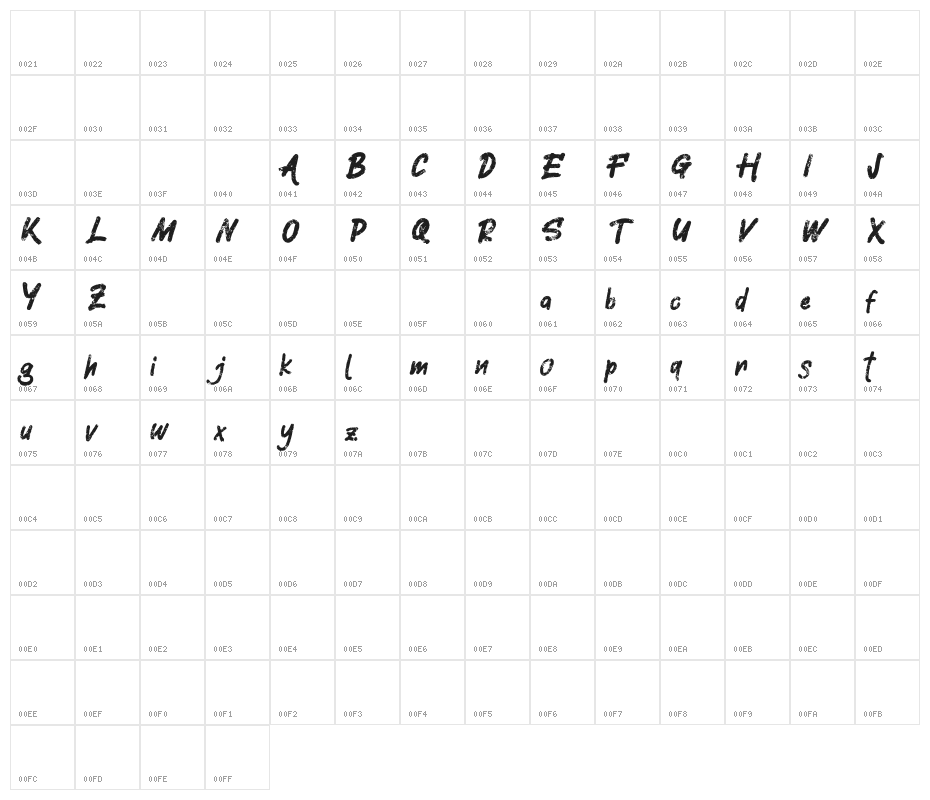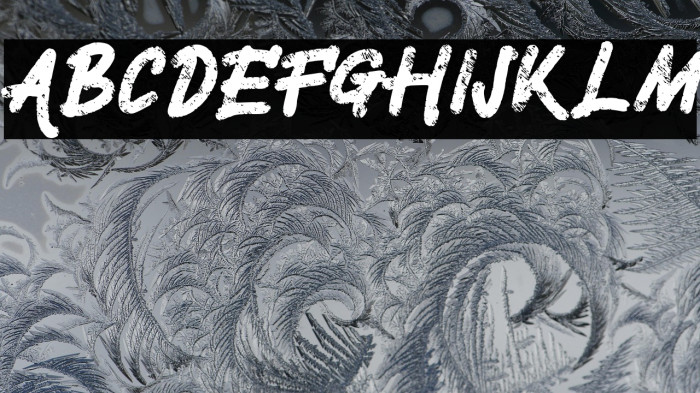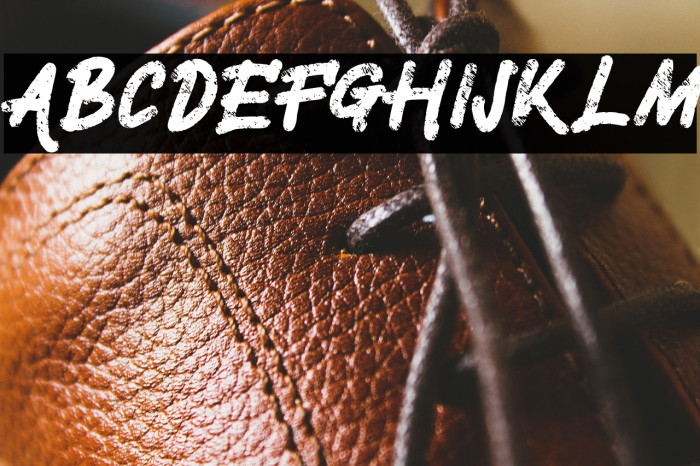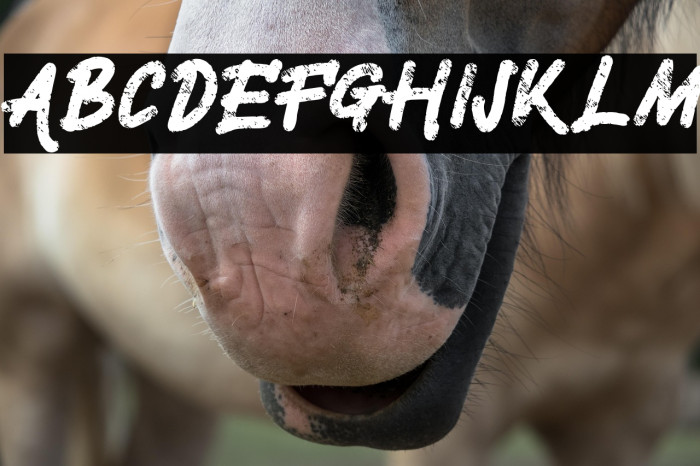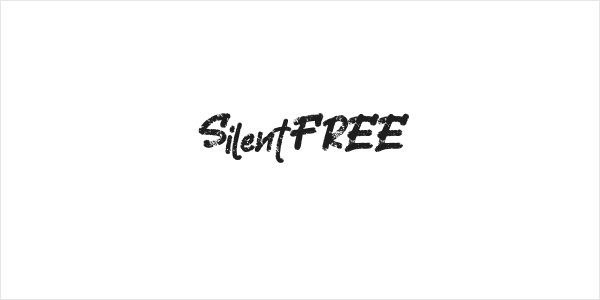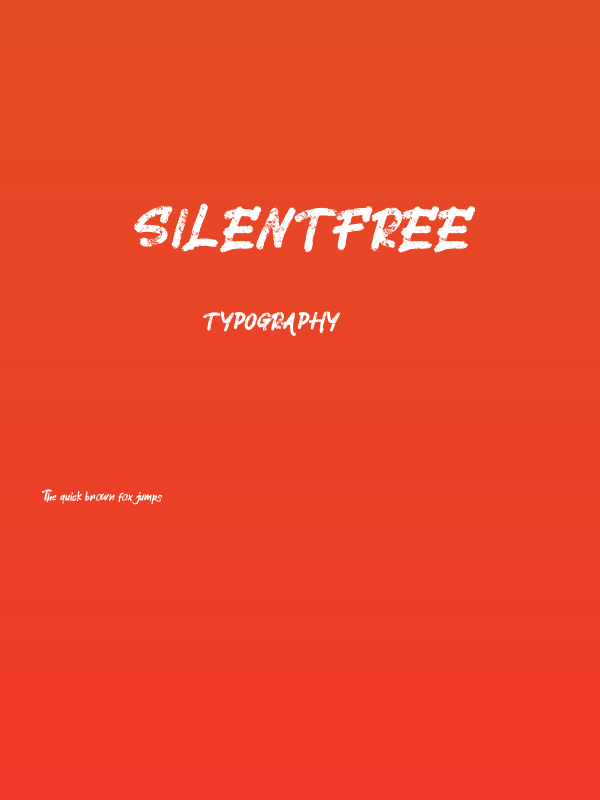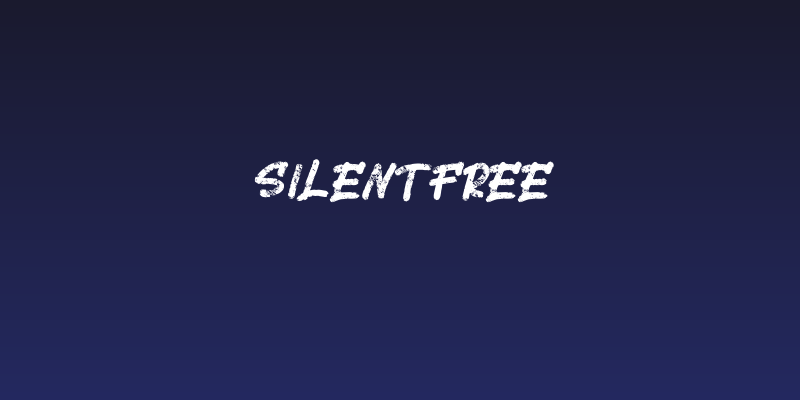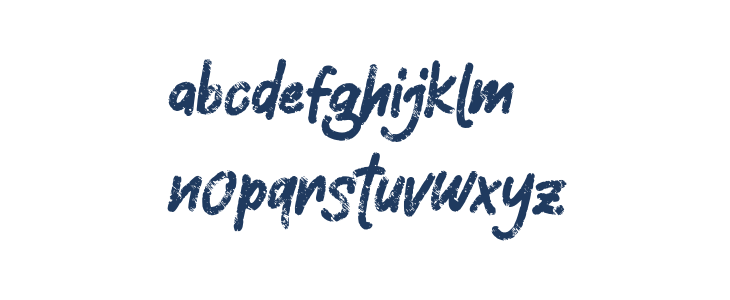
SilentFREE Font
SilentFREE Description
This font features a bold and textured style, reminiscent of a brush or paint stroke effect. The characters have a dynamic and energetic appearance, with irregular edges that give a hand-crafted feel. The uppercase and lowercase letters maintain a consistent style, with a slight slant that adds to the casual and informal look. The numbers and special characters are designed to match the overall aesthetic, making the font versatile for various creative applications. Its unique texture and boldness make it stand out, suitable for projects that require a strong visual impact.
| Proposed Projects | Ideal for posters, branding, social media graphics, and any project needing a bold, artistic touch. |